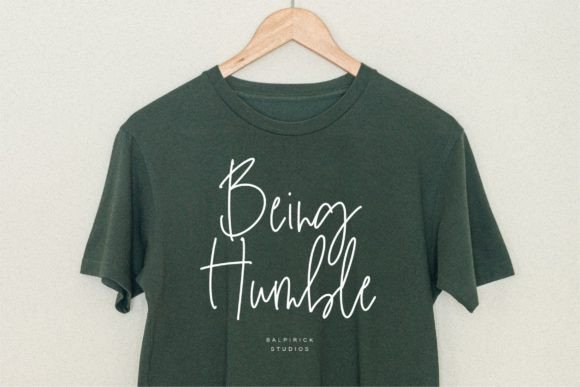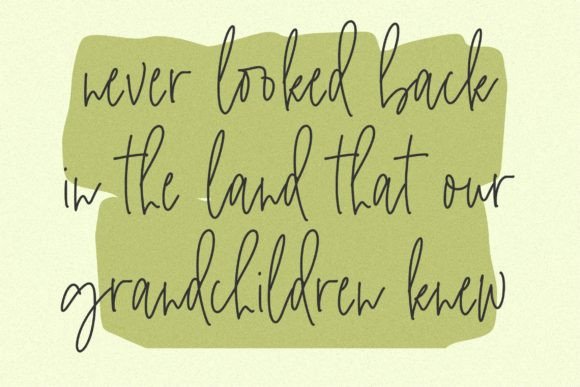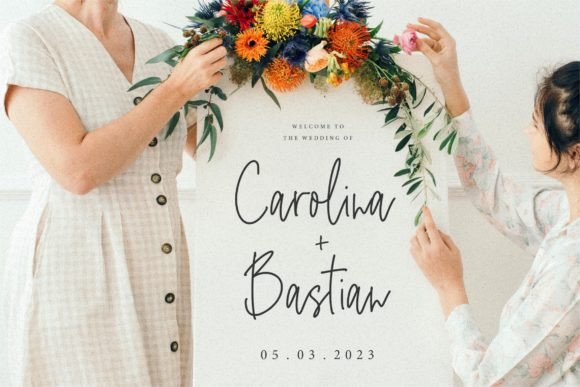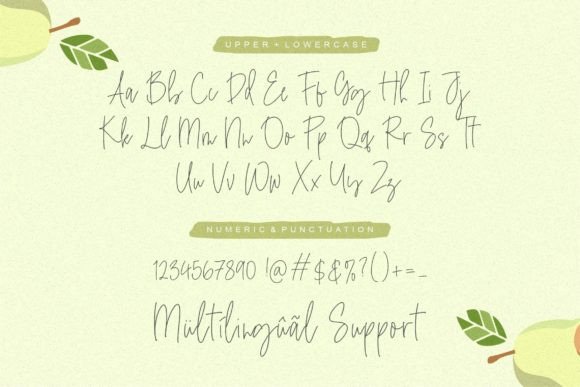
Introducing Avocado Candy Font: The Perfect Modern Monoline Script Font for Your Design Projects
Are you looking for a font that exudes modernity, elegance, and sophistication? Look no further than Avocado Candy Font, a stunning monoline script font that’s perfect for a wide range of design projects. With its smooth, effortless lines and understated charm, this font is sure to make a lasting impression on anyone who sees it.
What Makes Avocado Candy Font So Special?
Avocado Candy Font is a masterclass in modern design. Its clean, elegant lines make it perfect for projects that require a touch of sophistication. Whether you’re working on a logo, branding materials, invitations, packaging, or any other design project, this font is sure to deliver. Its simple yet refined aesthetic makes it incredibly versatile, allowing you to use it in a variety of contexts with ease.
Key Features of Avocado Candy Font
- Modern Monoline Script: Avocado Candy Font boasts a sleek, modern monoline script that’s perfect for creating elegant and sophisticated designs.
- Clean and Elegant Lines: The font’s smooth, effortless lines make it perfect for a wide range of design projects, from logos and branding to invitations and packaging.
- Understated Sophistication: Avocado Candy Font has a subtle, understated charm that makes it perfect for designers who want to create modern designs that are still timeless in their appeal.
- Incredibly Versatile: With its simple yet refined aesthetic, Avocado Candy Font can be used in a variety of contexts, making it a valuable addition to any designer’s toolkit.
Why Choose Avocado Candy Font for Your Design Projects?
There are many reasons why Avocado Candy Font stands out from the crowd. Here are just a few:
- Unique and Memorable: With its modern monoline script and elegant lines, Avocado Candy Font is sure to make your designs stand out from the crowd.
- Elegant and Sophisticated: This font exudes sophistication and elegance, making it perfect for high-end designs and luxury brands.
- Easy to Read: Despite its elegant lines, Avocado Candy Font is incredibly easy to read, making it perfect for body text and other applications where legibility is key.
- Scalable: This font is designed to look great at any size, making it perfect for use in a variety of contexts, from business cards to billboards.
How to Use Avocado Candy Font in Your Design Projects
Avocado Candy Font is incredibly versatile, and can be used in a wide range of design projects. Here are just a few ideas to get you started:
- Logos and Branding: Use Avocado Candy Font to create a modern and sophisticated logo that will help your brand stand out from the crowd.
- Invitations and Stationery: This font is perfect for creating elegant invitations, business cards, and other stationery items.
- Packaging: Avocado Candy Font is a great choice for packaging design, adding a touch of sophistication and elegance to any product.
- Web Design: Use this font to create a modern and elegant website that will leave a lasting impression on your visitors.
Avocado Candy Font is a stunning modern monoline script font that’s perfect for designers and crafters who want to create elegant and sophisticated designs. With its smooth, effortless lines and understated charm, this font is sure to make a lasting impression on anyone who sees it. Whether you’re working on a logo, branding materials, invitations, packaging, or any other design project, Avocado Candy Font is a great choice. So why wait? Download Avocado Candy Font today and start creating beautiful, modern designs that will leave a lasting impression on your audience.